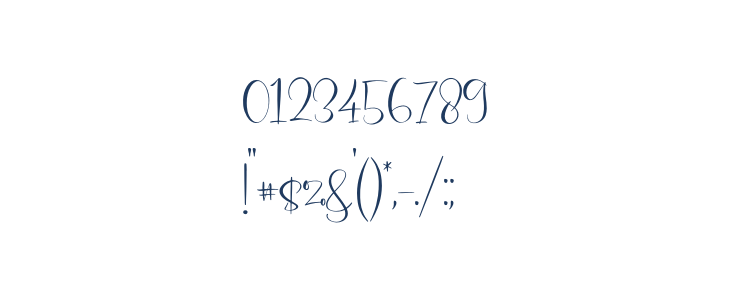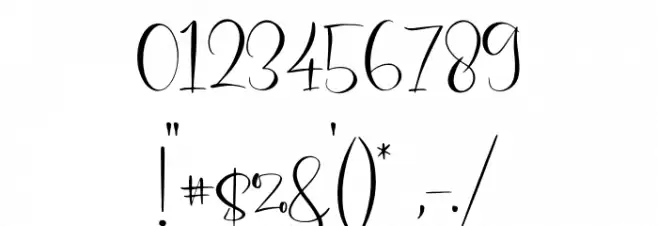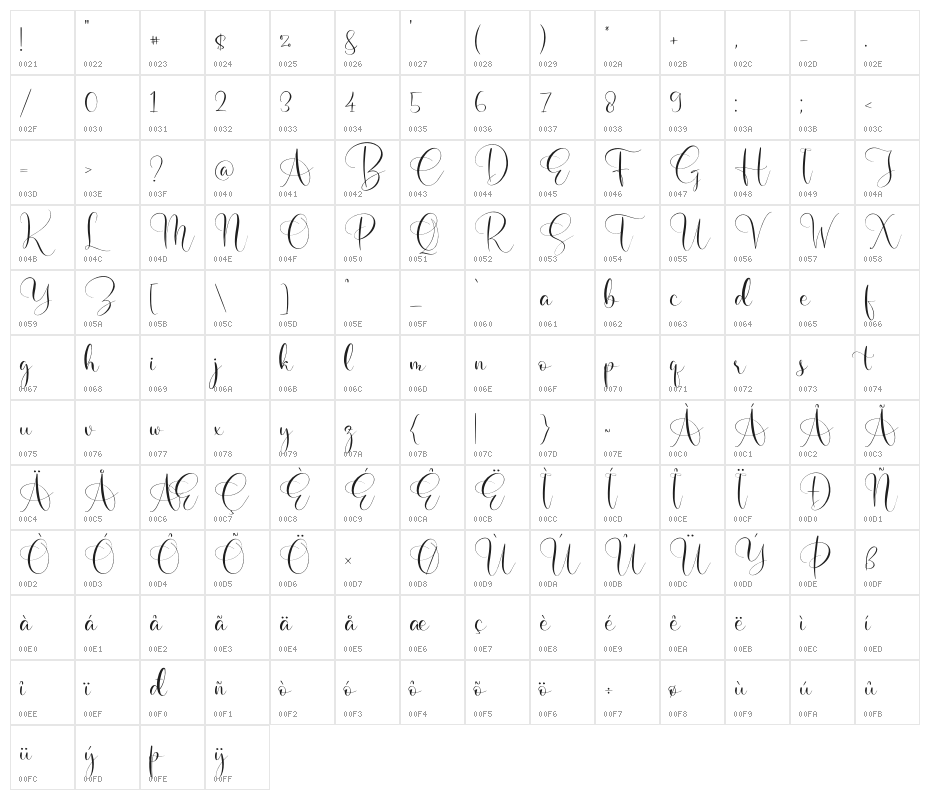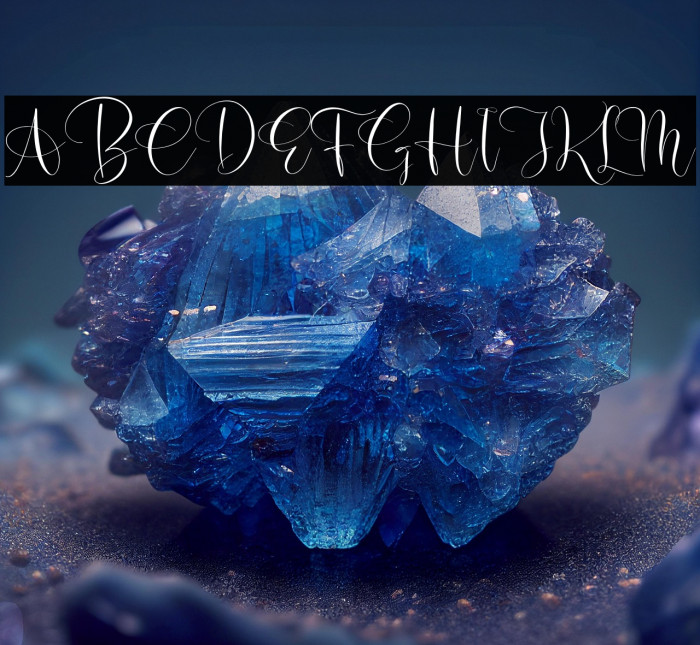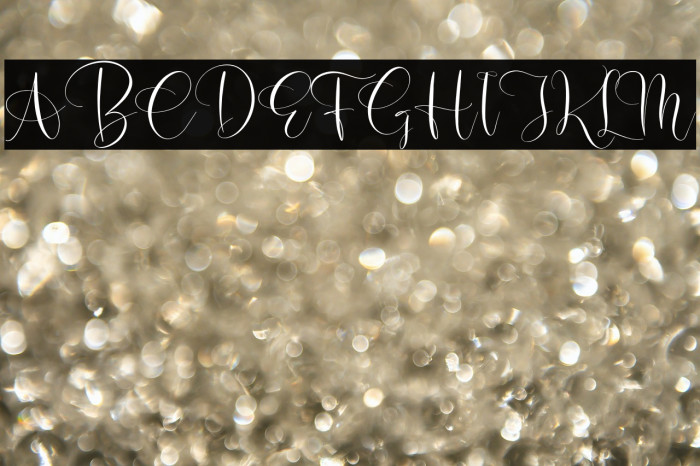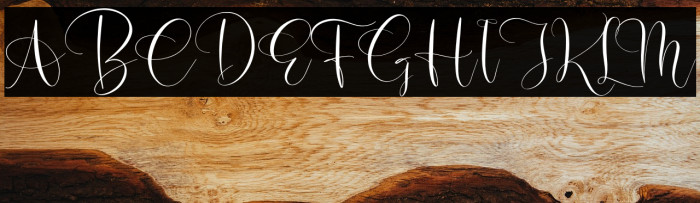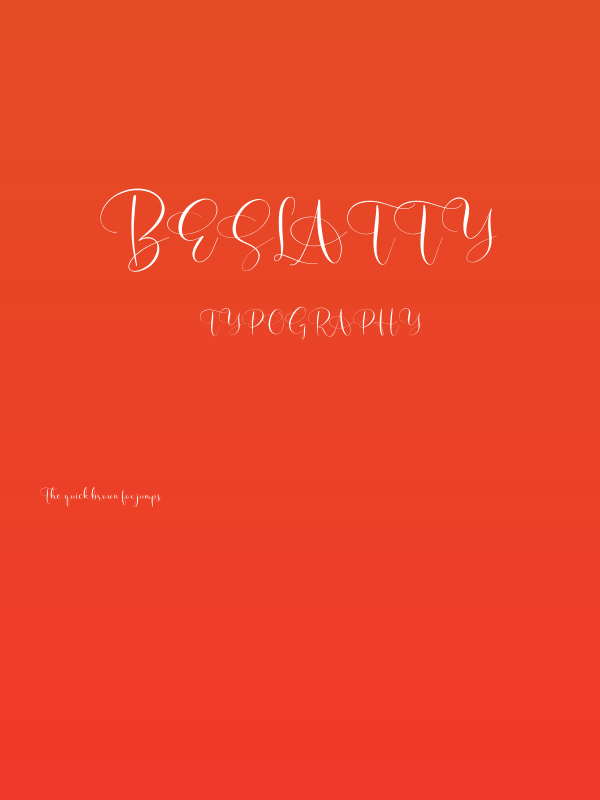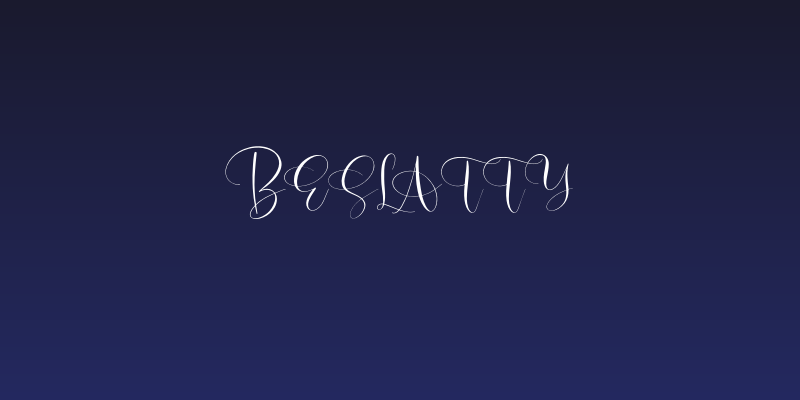
Beslatty Font
Beslatty Description
This font features an elegant and flowing script style, characterized by its smooth, cursive letterforms that exude a sense of sophistication and grace. The uppercase letters are slightly more ornate, with delicate loops and swashes that add a touch of flair. The lowercase letters maintain a consistent flow, with gentle curves and a harmonious balance. The numerals and special characters complement the overall aesthetic, maintaining the same fluidity and elegance. This font is perfect for projects that require a personal, handwritten touch, while still maintaining a professional appearance.
An elegant, flowing script font with sophisticated cursive letterforms from Uncategorized fonts.
- Font: Beslatty
- Proposed Projects: Ideal for wedding invitations, greeting cards, branding, and elegant packaging.
- Overall Style: Elegant
- Use Case: Logos, Invitations, Decorative text